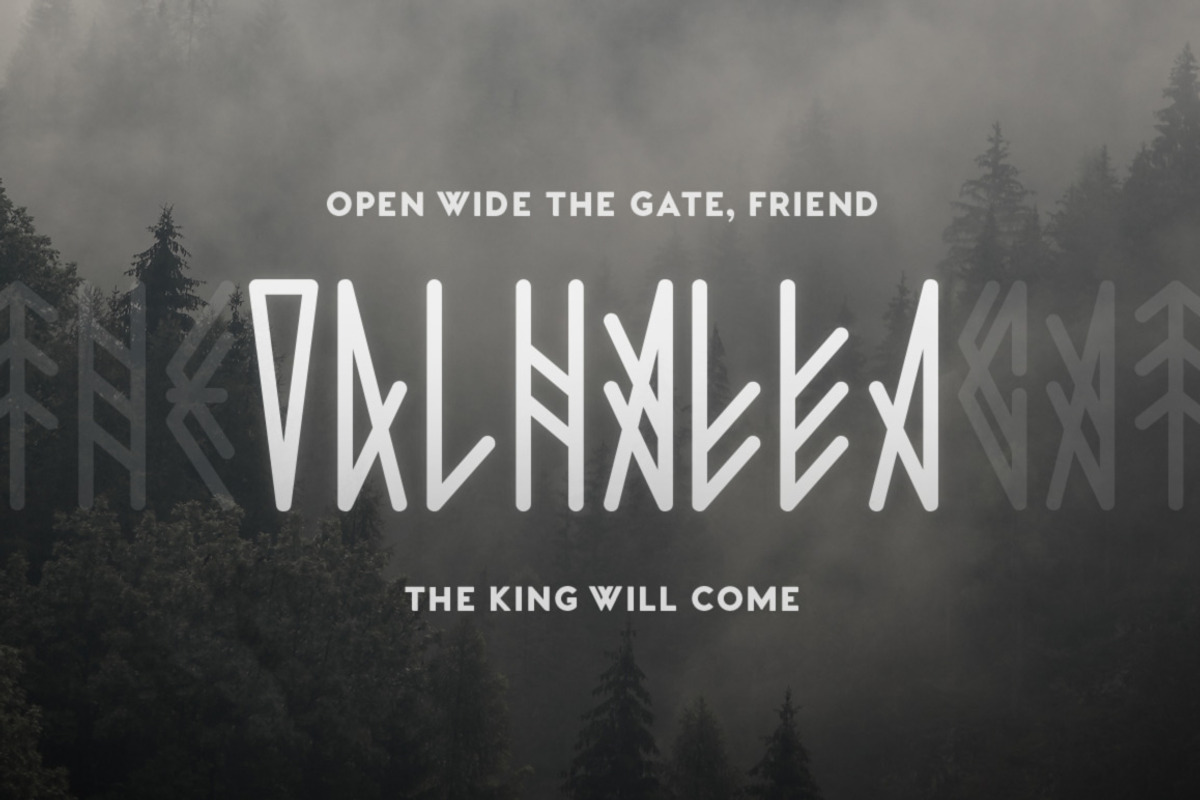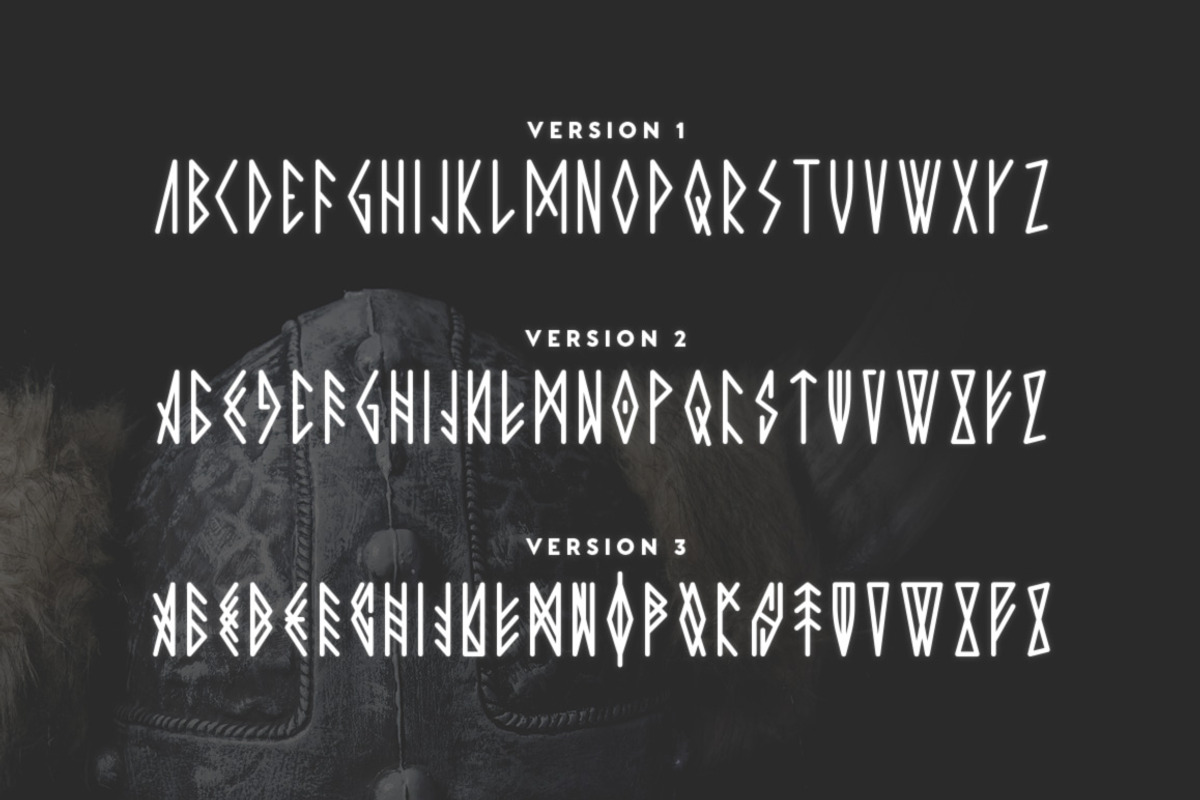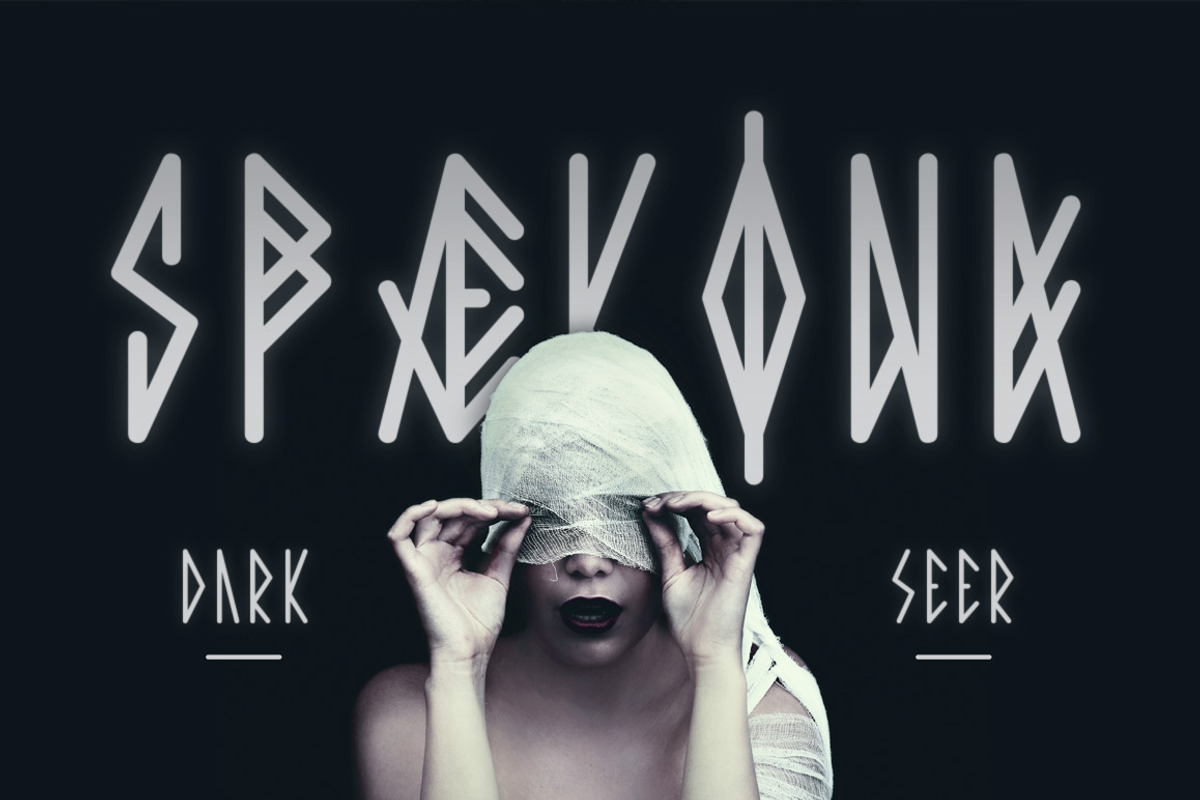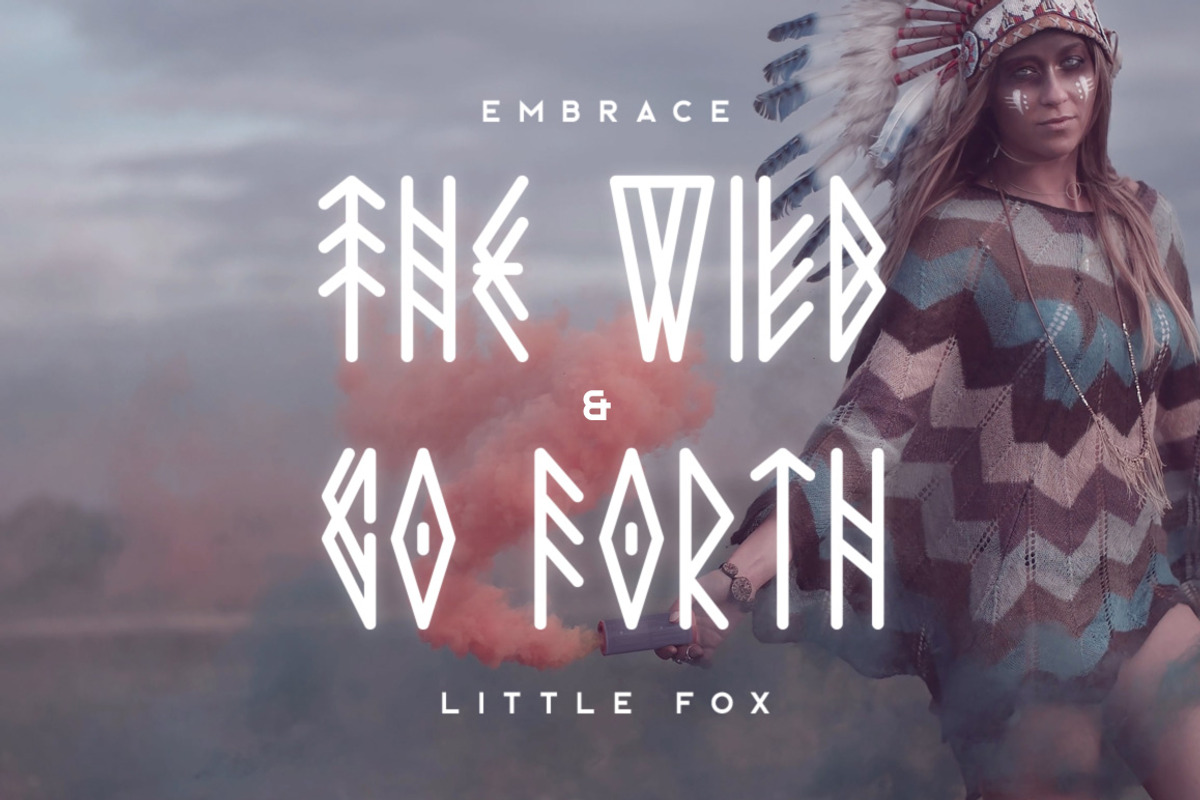
Jotunheim Typeface
Jotunheim Typeface by Tugcu Design Co. is a font selected for branding, posters, packaging, typography.
- Jotunheim includes uppercase multilingual letters, numbers and simple punctuation.
- Jotunheim Version 1
- Jotunheim Version 2
- Jotunheim Version 3
Jotunheim Typeface by Tugcu Design Co. fits naturally into Branding, posters, packaging, typography.